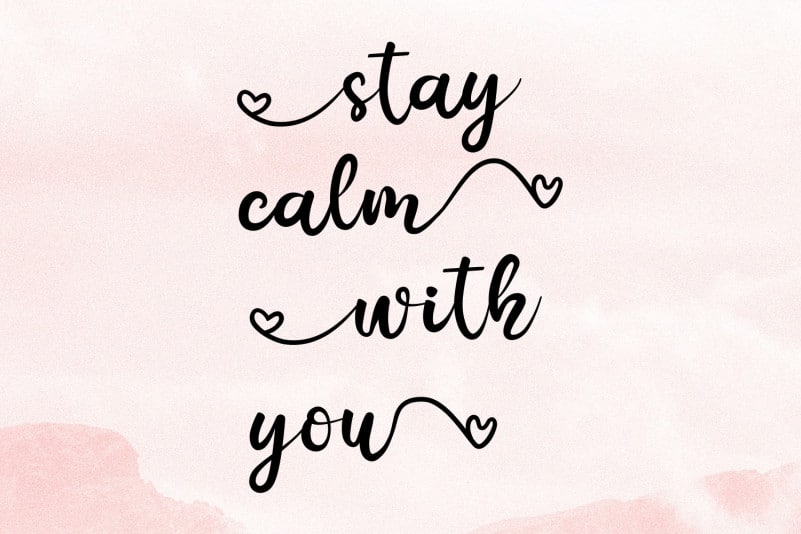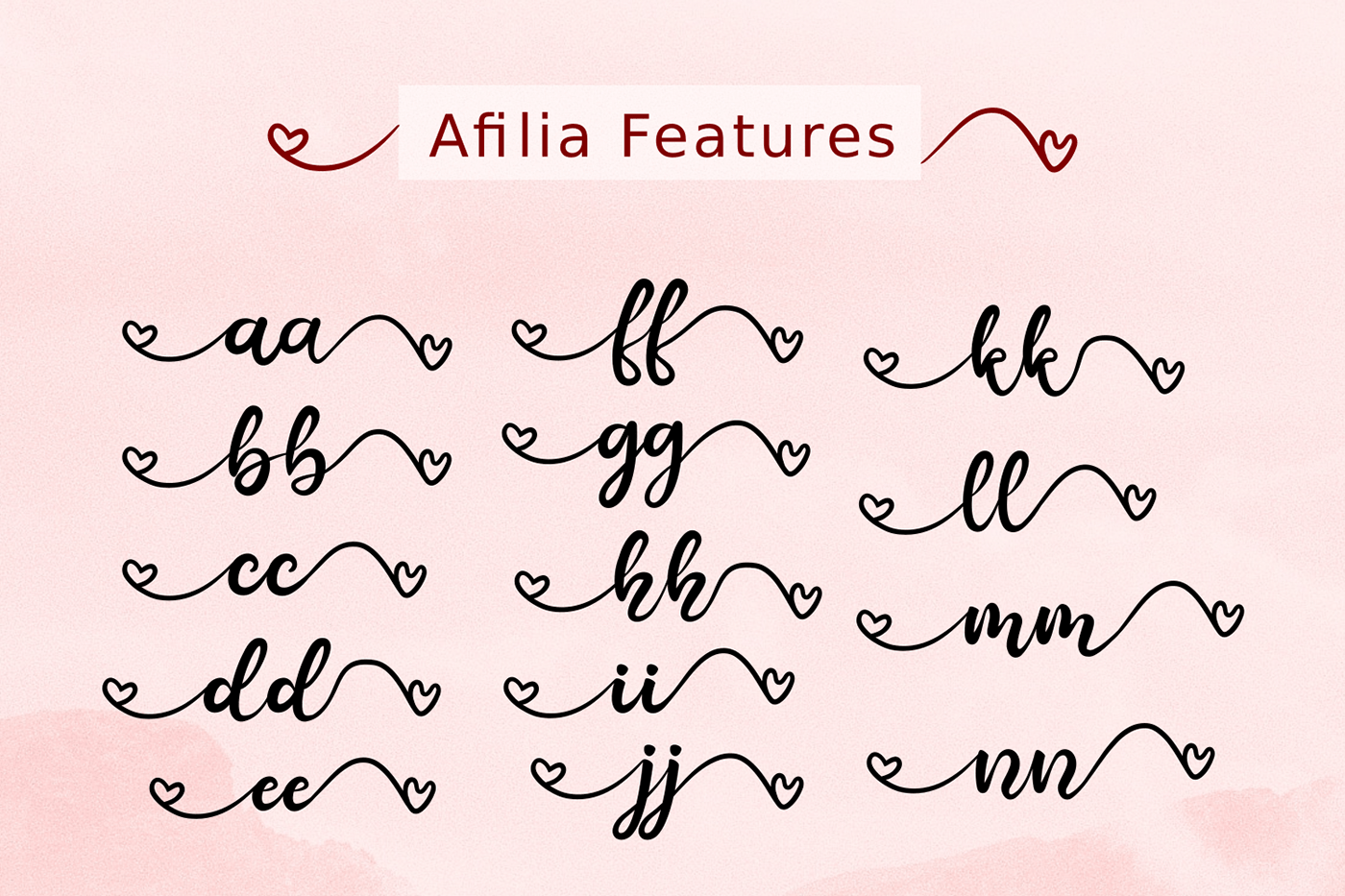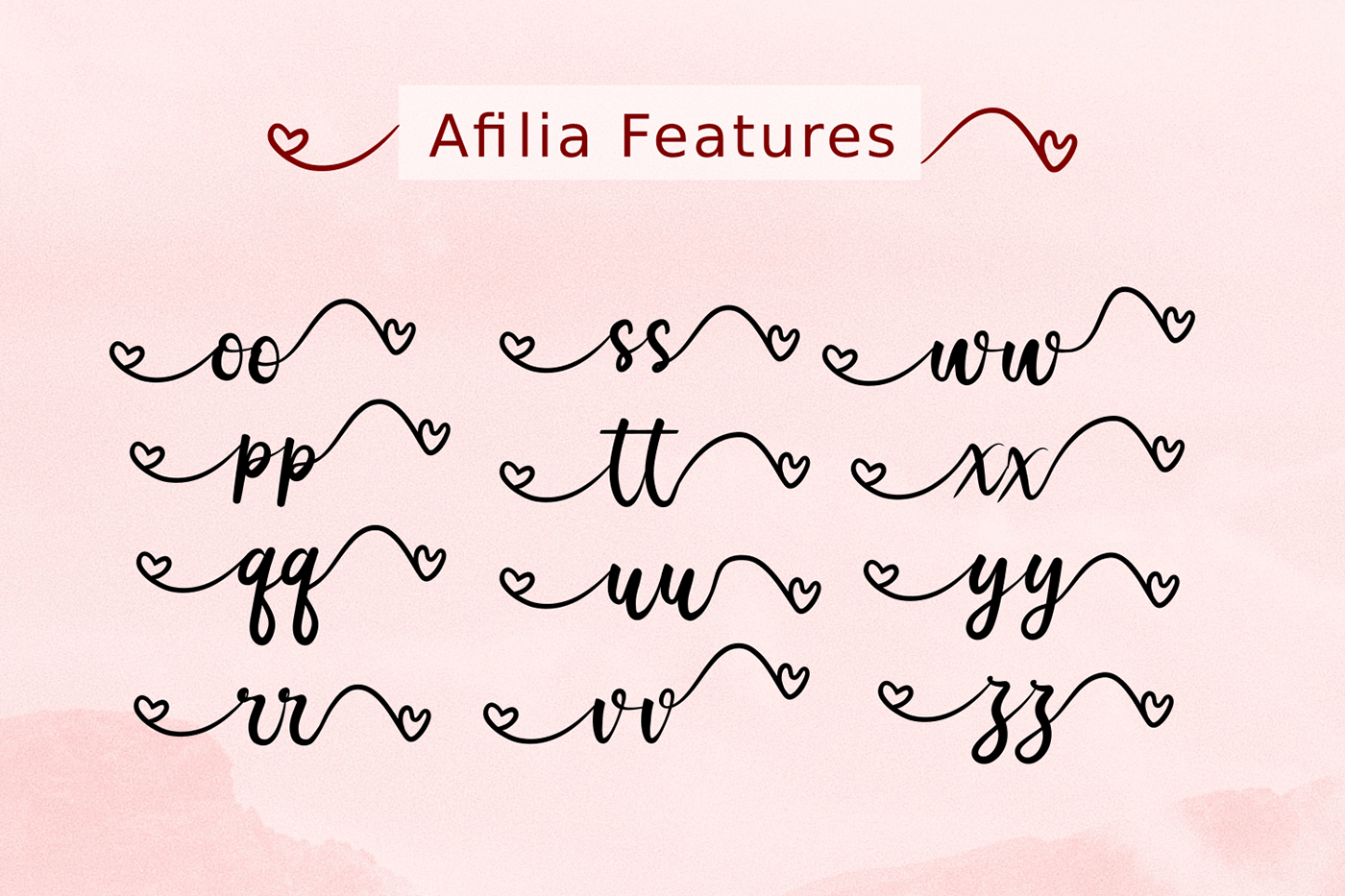
Afilia Script Font
Afilia Script Font is a script, a display font. Its main features are the begining and ending swash.
Afilia is very suitable for design projects such as wedding invitation cards, congratulations cards, logotypes and so on.